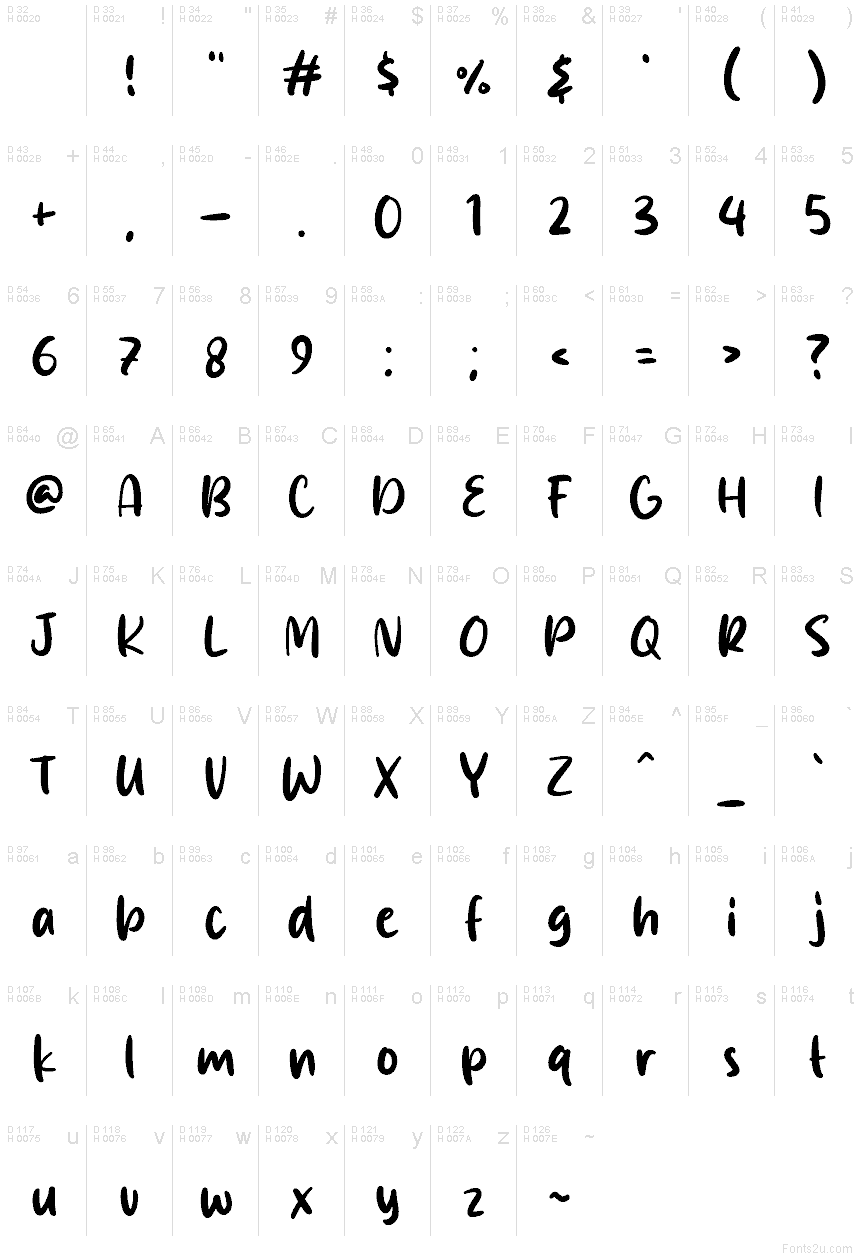
Blue Shine
Blue Shine font by Origin Type is a free brush script typeface. It solves the common brush-lettering dilemma: many look wild but read poorly, others feel stiff and lose the hand-drawn charm. Blue Shine keeps the bounce and inked warmth—rounded strokes, soft edges, and a relaxed slant—while staying clean enough for quick scanning in busy layouts.
Using Blue Shine, you get lively headlines that still behave on logos, packaging, quote graphics, event posters, social media covers, and café menus. The rhythm is steady and friendly, so copy feels welcoming without turning messy. This free font pairs easily with a crisp geometric sans for body text; keep tracking modest and let the brush forms breathe at medium-to-large sizes.